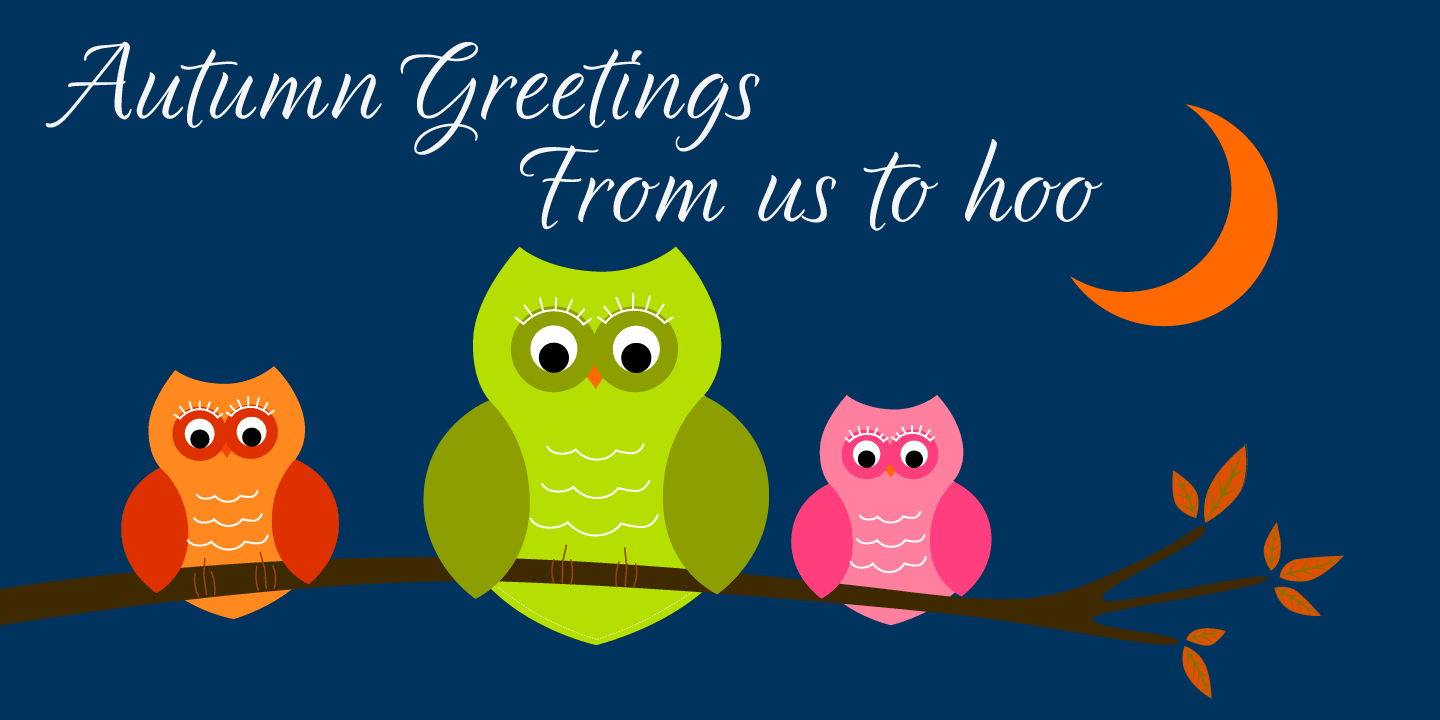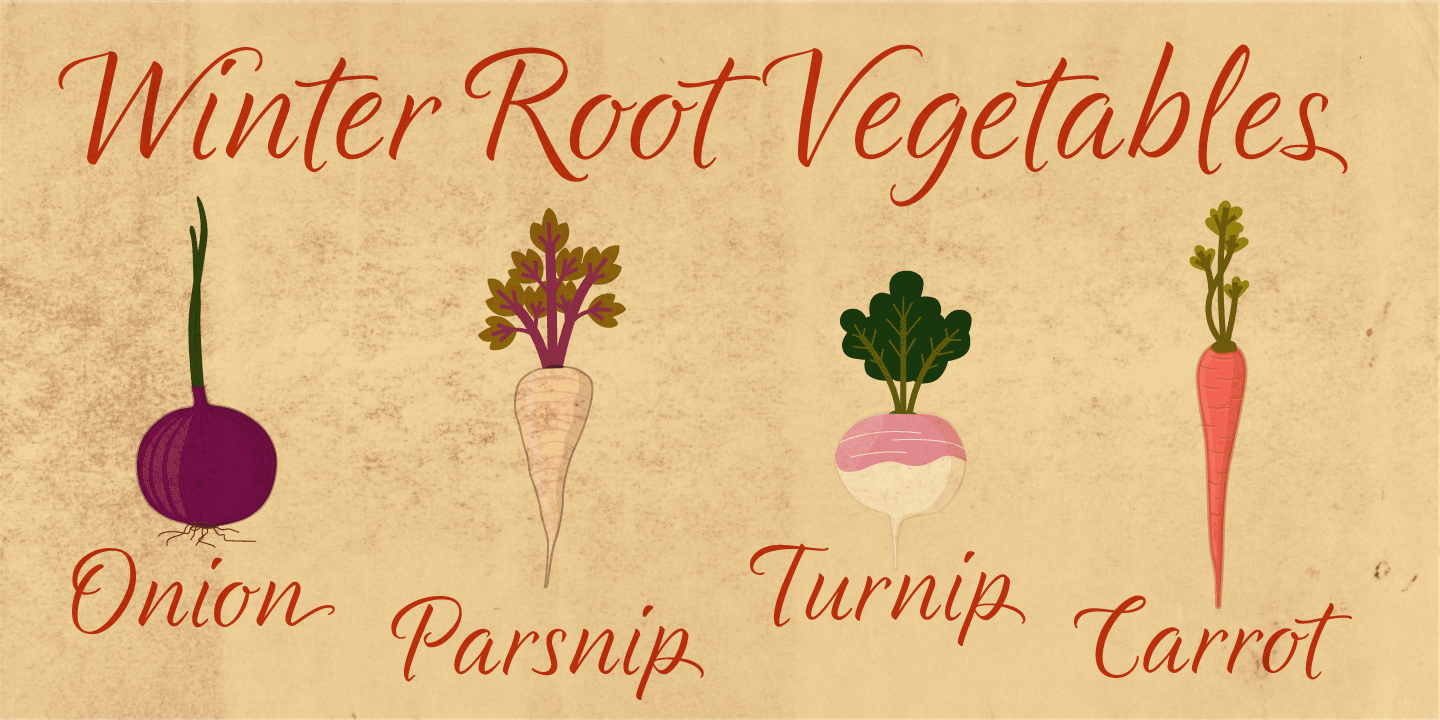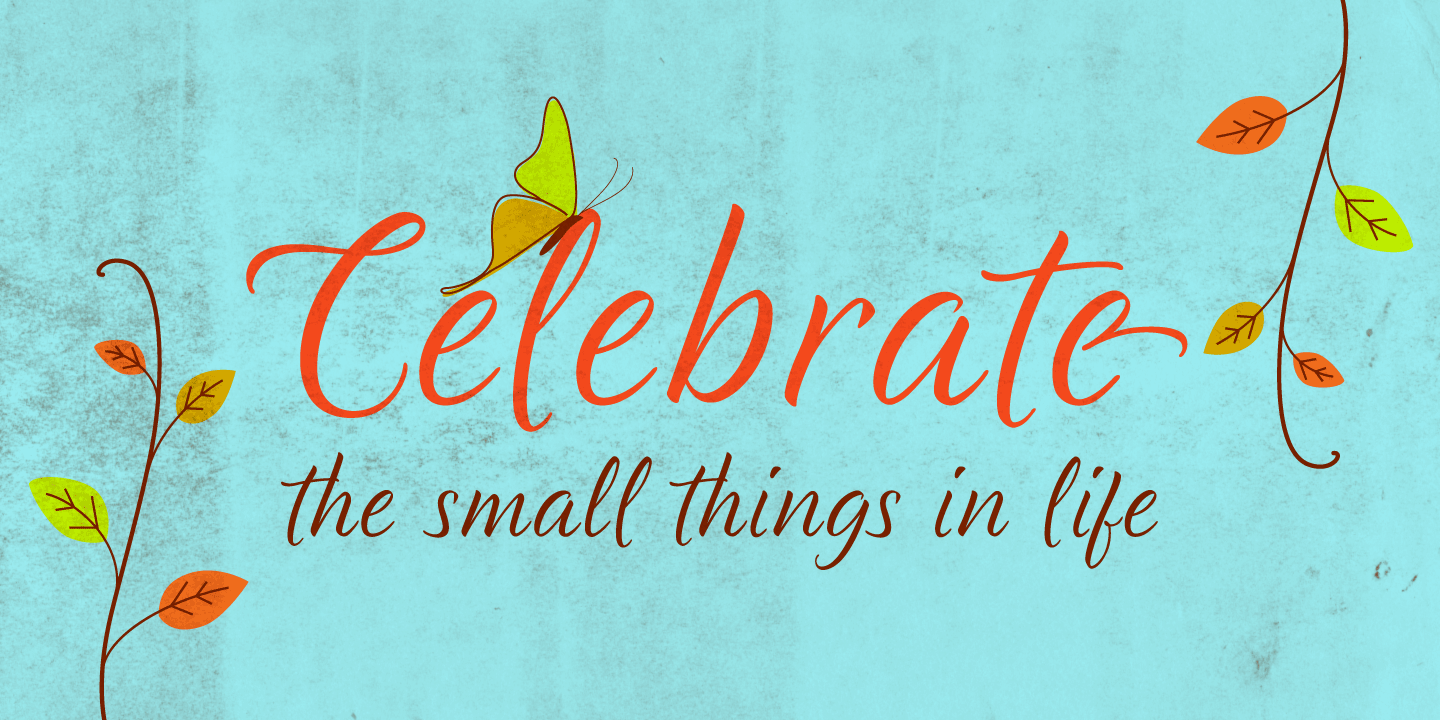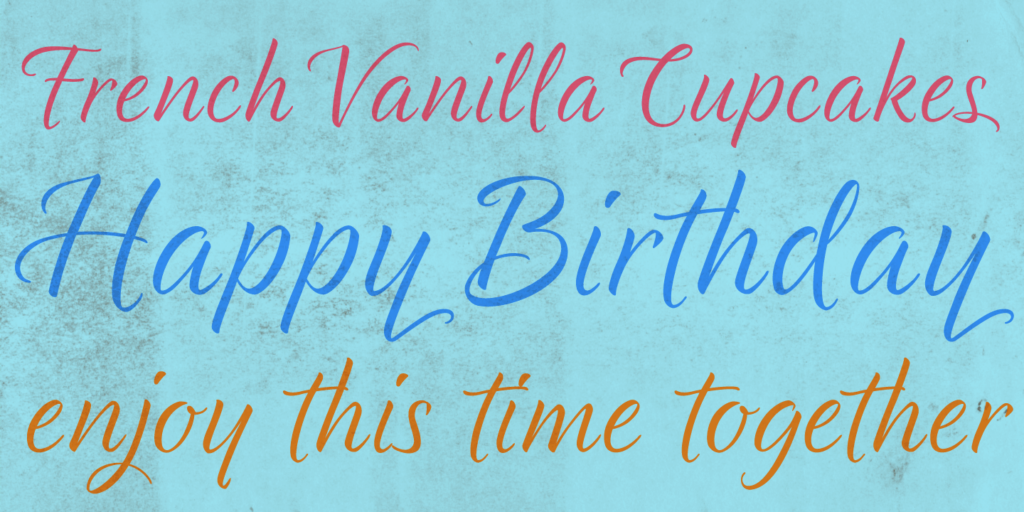
About Garden Brush
This is the ultimate pointed brush typeface. Light, clean and fresh. Garden Brush will fit into almost any situation. The swash caps and end strokes can be used for a more dramatic statement.